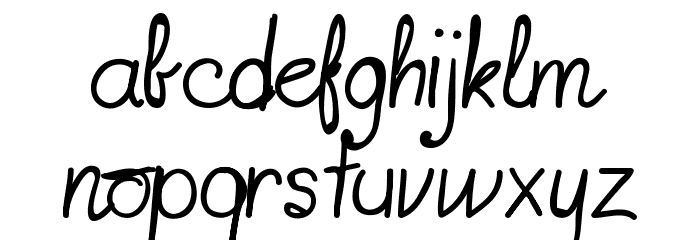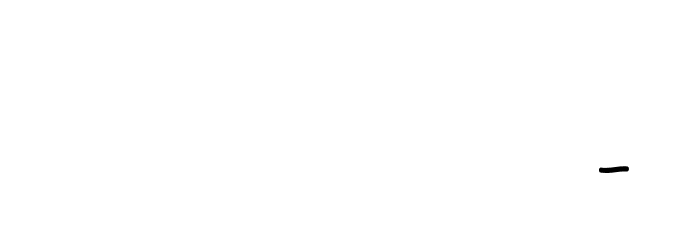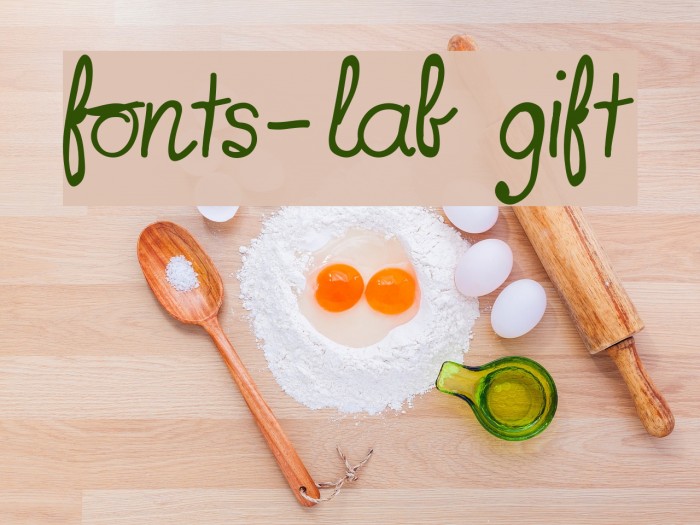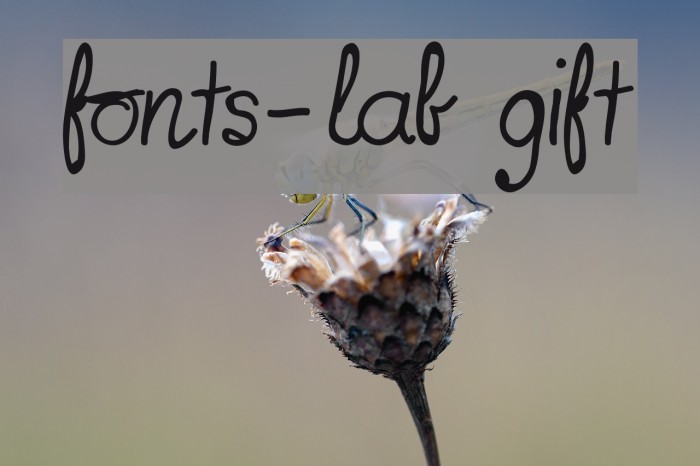
fonts-lab gift Font
This font features a playful and casual handwritten style, characterized by its smooth, flowing curves and slightly irregular letterforms. The letters are connected in a cursive manner, giving it a natural and organic feel. The strokes are consistent in weight, providing a balanced appearance without sharp contrasts. This font exudes a friendly and approachable vibe, making it suitable for informal and creative projects. The overall design is clean and legible, with a touch of whimsy that adds personality to any text.
A playful, casual handwritten font with smooth, flowing curves.
- Proposed Projects: Ideal for greeting cards, invitations, personal notes, and creative branding projects.
- Overall Style: Casual
- Use Case: Logos, Invitations, Personal notes